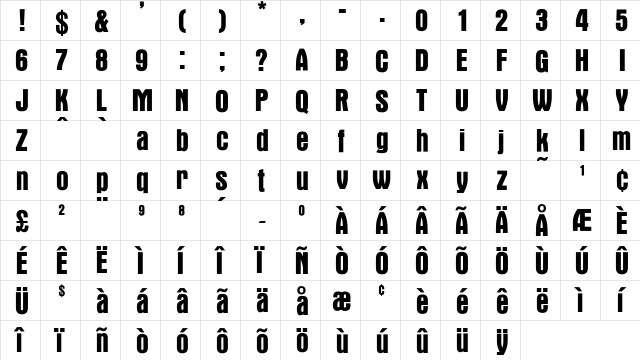
OPTIAuroraGroteskNine Medium
Design Context for OPTIAuroraGroteskNine Typeface
OPTIAuroraGroteskNine takes a clean, functional approach — its unadorned letterforms prioritise legibility and work reliably across screen and print environments.
Font Pairing: Works well alongside a characterful serif or display font that can carry the expressive load while OPTIAuroraGroteskNine handles the functional copy.
Pro Tip: Use OPTIAuroraGroteskNine for UI labels, navigation, and short-form body copy where clean legibility is the priority.